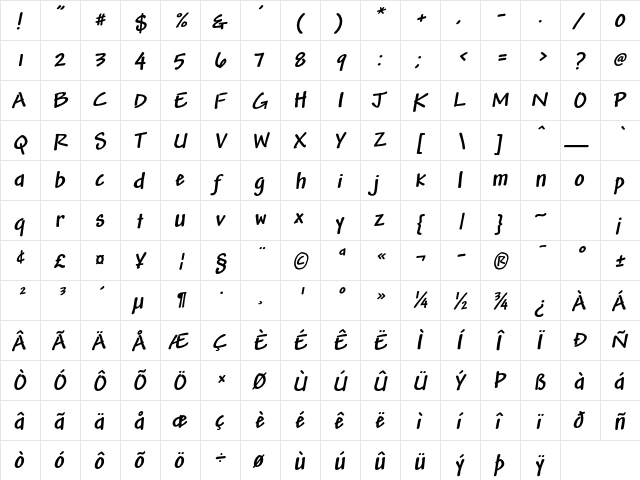
Andy Std Bold Italic
Design Context for Andy Std Typeface
Andy Std is a composed and adaptable typeface that performs quietly and consistently across a wide range of design contexts. The slanted form adds forward momentum and visual energy. Its bold stroke weight gives it real presence on the page.
Pro Tip: Use Andy Std for emphasis, pull quotes, and subheadings where its slanted energy can add rhythm to the layout.